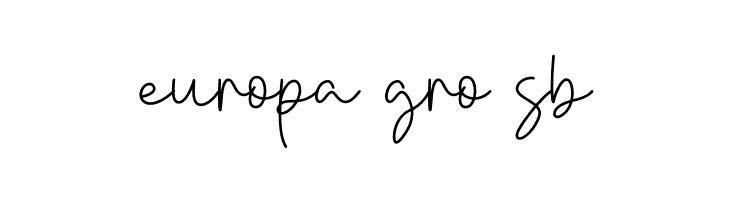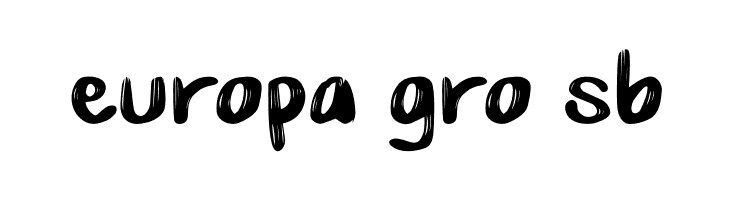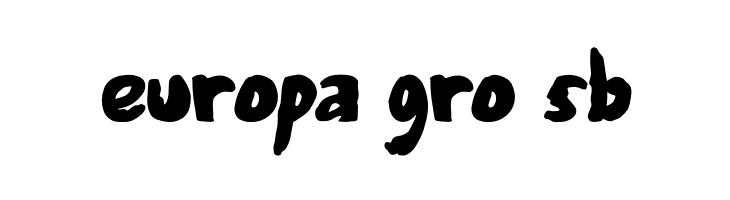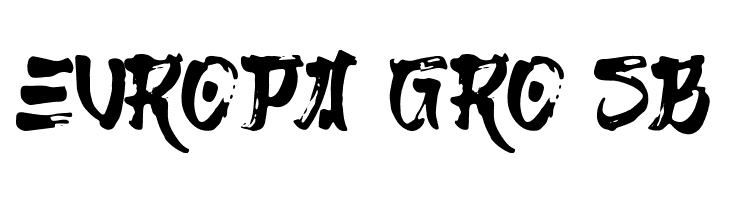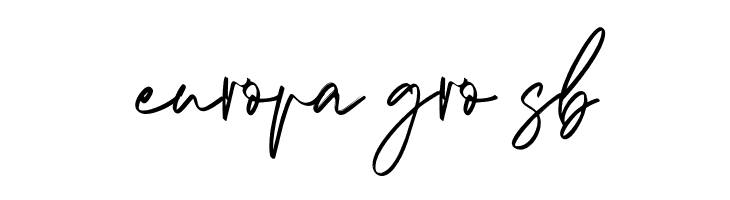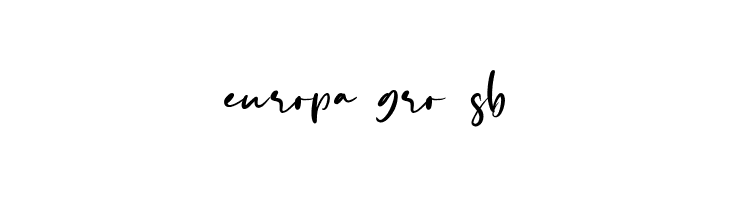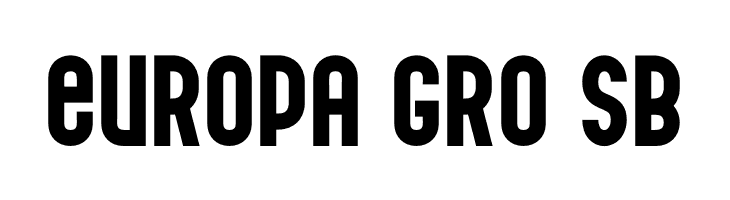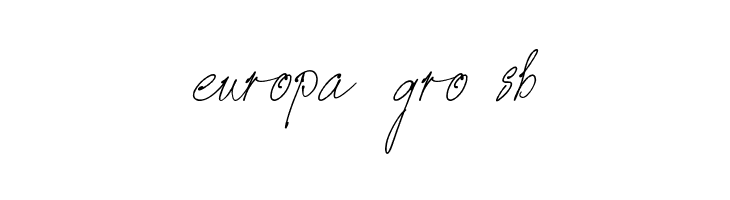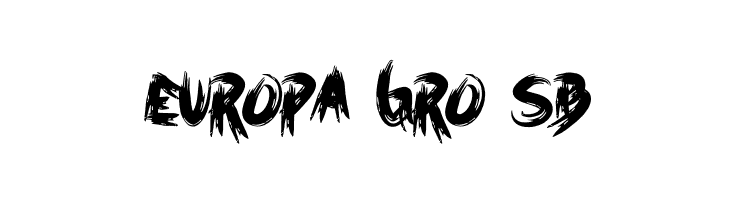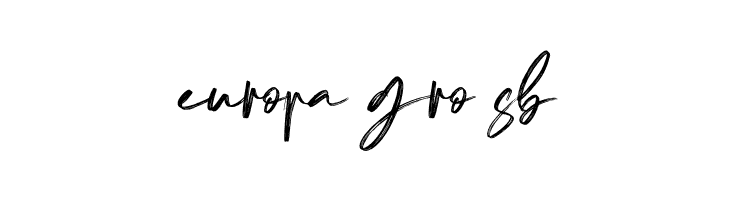
A playful, handwritten cursive font with smooth, flowing lines.
A bold, brush-style font with dynamic, hand-drawn strokes.
A bold, hand-drawn font with playful, uneven strokes and a dynamic appearance.
A bold, brushstroke-style font with dynamic and artistic flair.
A lively handwritten font with fluid, connected strokes and varying thickness.
A lively and expressive handwritten font with dynamic strokes and a playful style.
A bold, modern font with a geometric and condensed design.
A fluid, cursive script font with elegant, connected letters.
A bold, jagged font with a spooky, distressed style perfect for Halloween themes.
A playful, expressive handwritten font with fluid, dynamic strokes.